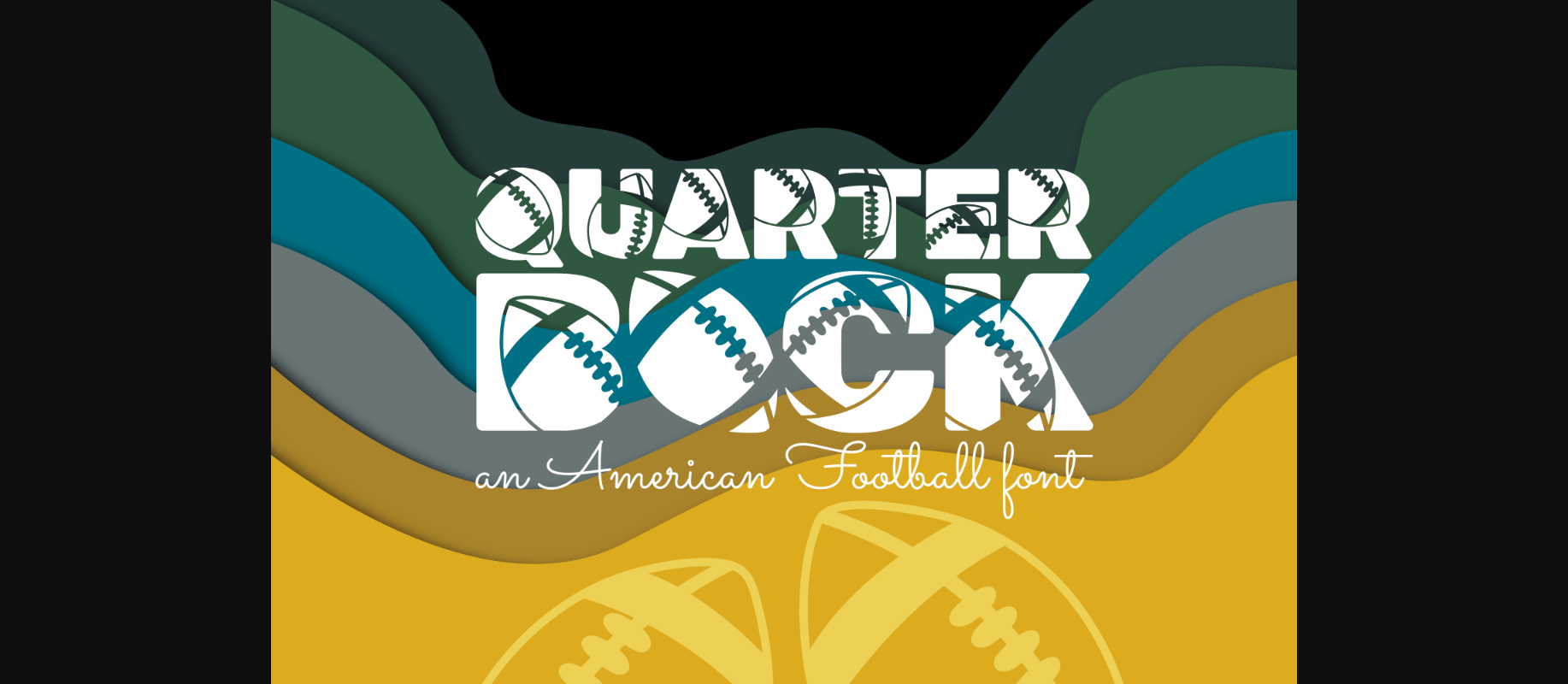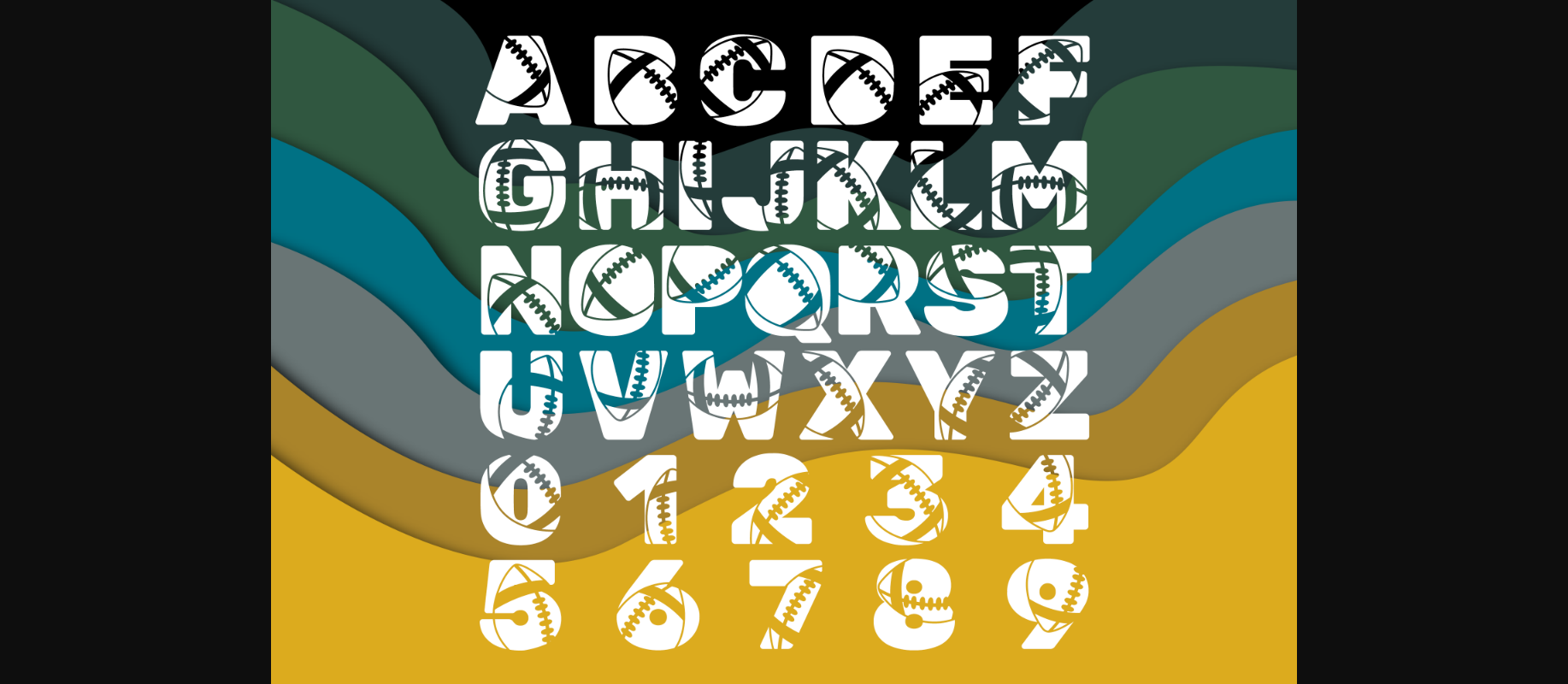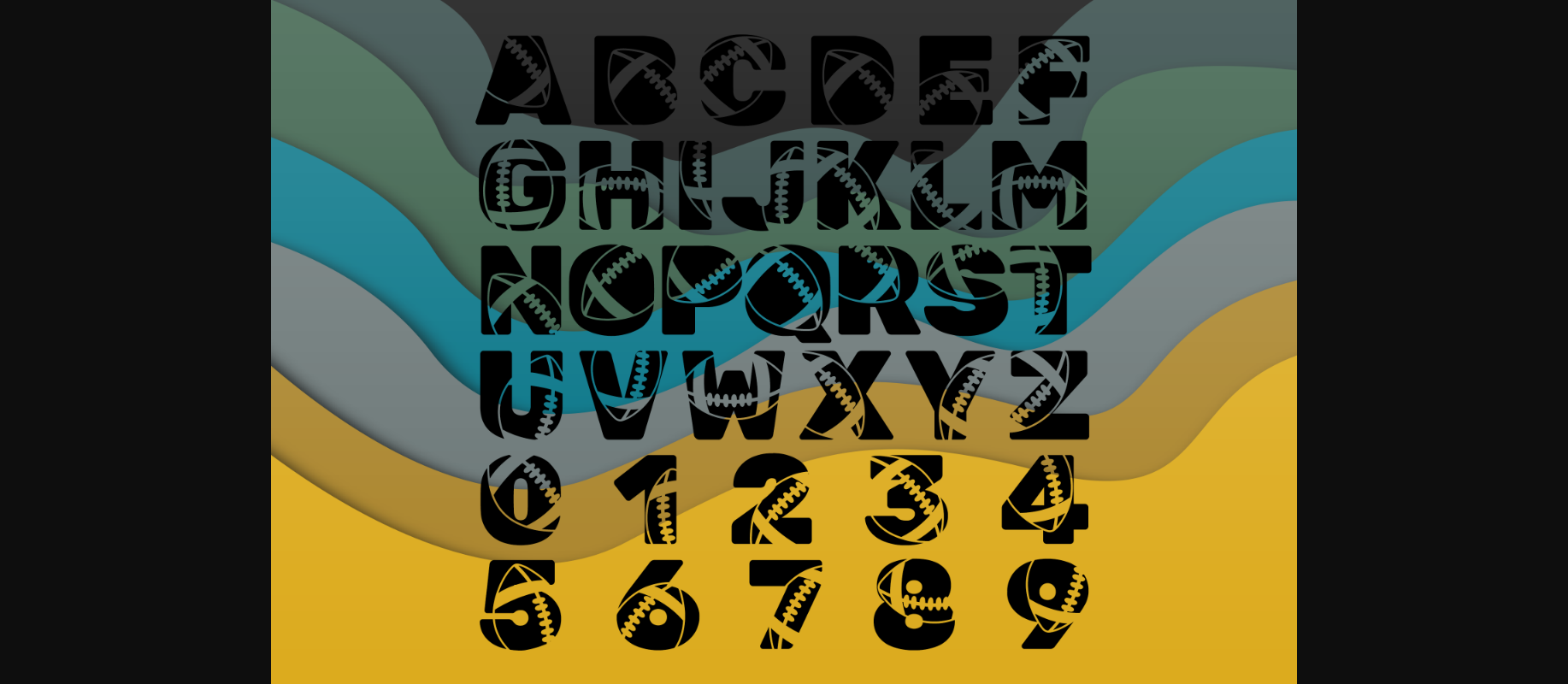
About Quarterback Font
Quarterback is an incredibly cool font. Simple but with a strong visual effect, this font will instantly make your creation more appealing than any others.